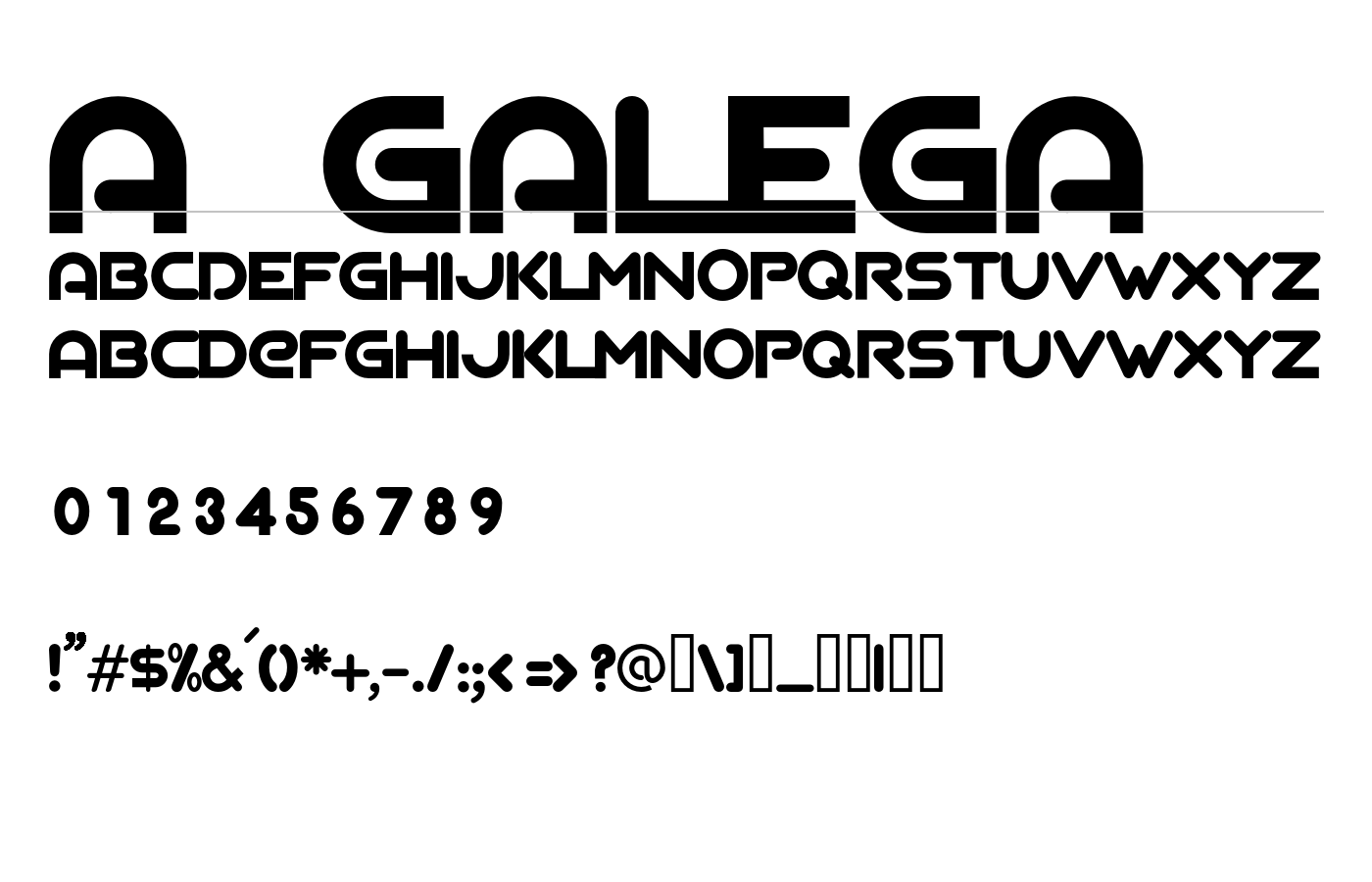
A GALEGA is a bold, geometric sans serif font characterized by its rounded corners and consistent stroke weight that create a modern and friendly appearance. Its clean, uniform letterforms with single-story characters and open apertures make it highly readable while conveying a playful, futuristic vibe. This font works well for logos, headlines, and branding projects seeking a contemporary and approachable style with a touch of uniqueness.
| Font family | A GALEGA Font |
| Designer | ALBERTO VARELA FERREIRO |